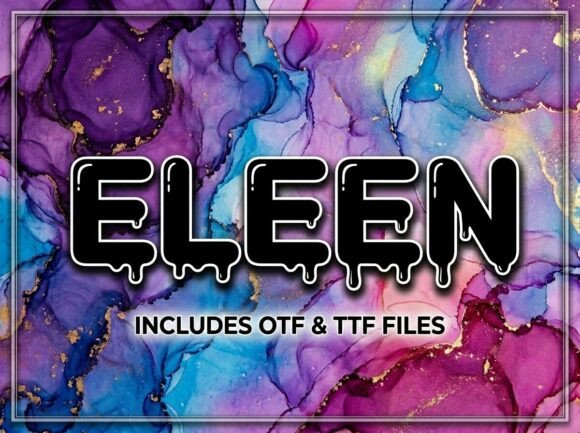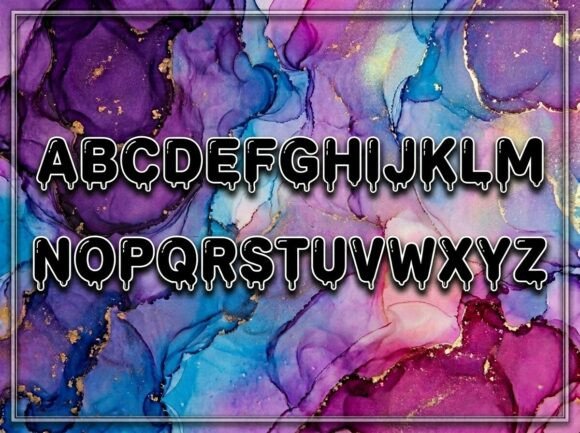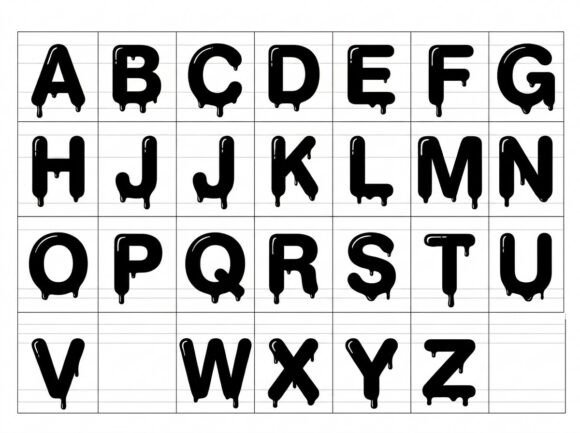
Introducing Eleen Font: A Stunning Decorative Display Font
Are you tired of using the same old fonts for your creative projects? Look no further than Eleen Font, a unique and artistic display font that’s sure to turn heads. Designed to be the center of attention, Eleen Font features a strong visual personality and versatility that’s perfect for creators who want to break away from the ordinary.
What Makes Eleen Font Special?
Eleen Font is a decorative display font that’s specifically designed for high-impact headlines, logos, and decorative initials. With its unique artistic elements and strong visual personality, this font is perfect for creators who want to add a touch of elegance and sophistication to their work.
One of the standout features of Eleen Font is its versatility. Whether you’re looking to create bold headlines, artistic logos, or creative packaging, this font is up to the task. And with its professional and polished finish, you can be sure that your work will look great in any context.
Before you purchase Eleen Font, it’s essential to note that this font is an ALL-CAPS (Uppercase Only) display typeface. This means that it does not include lowercase letters, making it specifically designed for high-impact headlines, logos, and decorative initials where every letter is a work of art.
While this may seem limiting, the ALL-CAPS design actually allows for a more dramatic and attention-grabbing effect, making it perfect for creative projects where you want to make a statement.
Use Cases for Eleen Font
So, what can you use Eleen Font for? The possibilities are endless, but here are a few ideas to get you started:
- Bold Headlines: Use Eleen Font to create eye-catching headlines that grab attention and draw readers in.
- Artistic Logos: Create unique and memorable logos that showcase your brand’s personality and style.
- Creative Packaging: Add a touch of elegance and sophistication to your product packaging with Eleen Font.
- Decorative Initials: Use Eleen Font to create beautiful decorative initials that add a personal touch to your work.
Eleen Font is a stunning decorative display font that’s perfect for creators who want to add a touch of elegance and sophistication to their work. With its unique artistic elements, strong visual personality, and versatility, this font is sure to turn heads. Whether you’re looking to create bold headlines, artistic logos, or creative packaging, Eleen Font is the perfect choice.